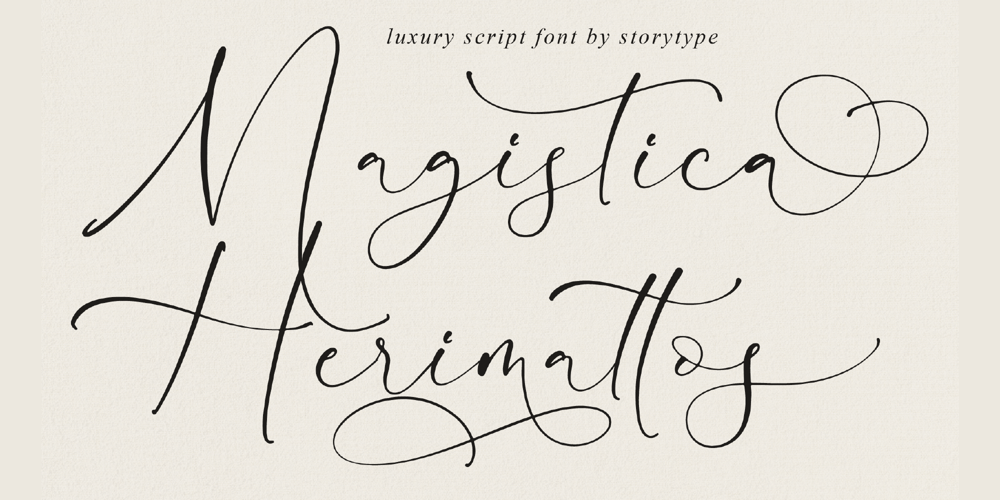
Magistica Herimattos
Magistica Herimattos font
Magistica Herimattos Font Family was designed by Heru Utama Putra and published by Letterena Studios. Magistica Herimattos contains 2 styles and family package options. Magistica Herimattos is a luxurious script font featuring a unique style and modern look. This typeface is perfect for an elegant & luxury logo, book or movie title design, fashion brand, magazine, clothes, lettering, quotes, and so much more.